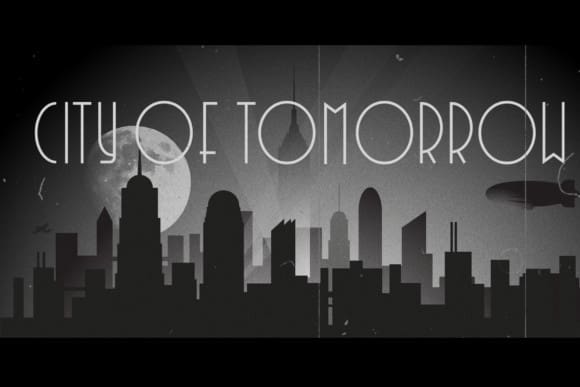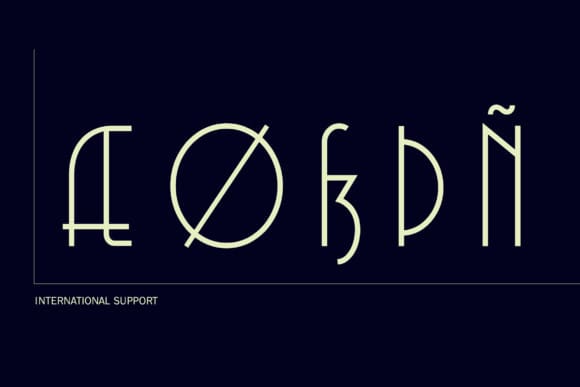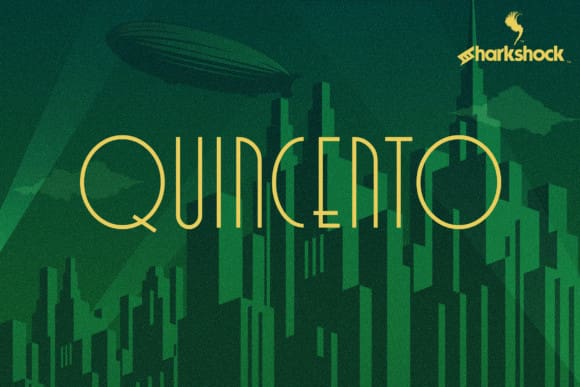
Quincento Font
Quincento Font, pronounced queen-chento, is an Art Deco inspired font defined by its use of verticals and geometric shapes. This all caps display font alternates between sleek, thin curvature and sharp 90 degree angles. Rounded corners can be substituted in some instances by alternating between upper and lower case as well as alternate glyphs. Tall, undulating, and nostalgic, it captures the decorative vibe that dominated pop culture during the roaring twenties. Use it for a retro poster, restaurant logo, or Gatsby themed invites.